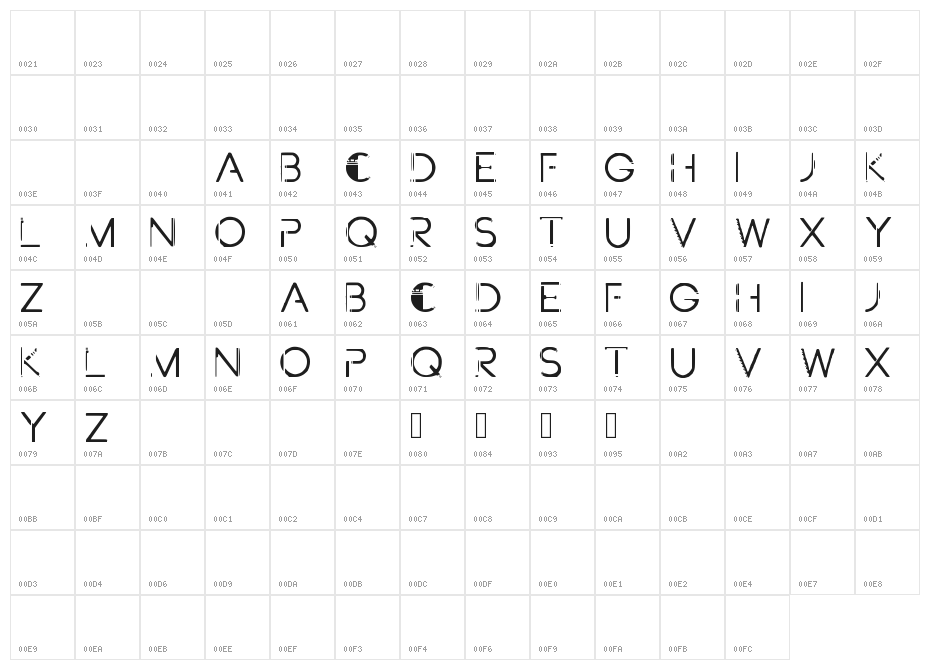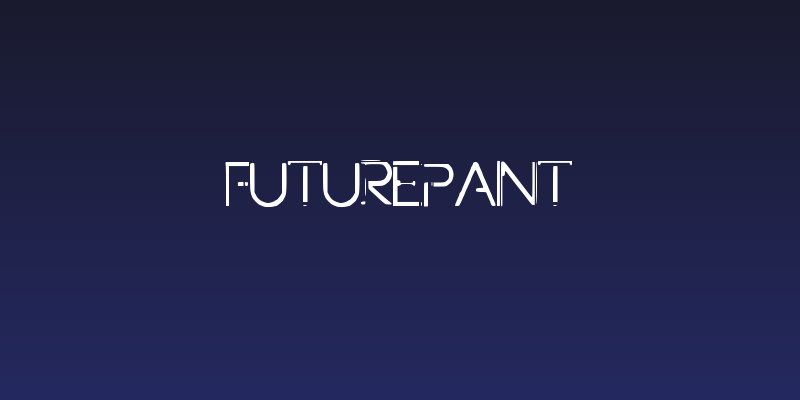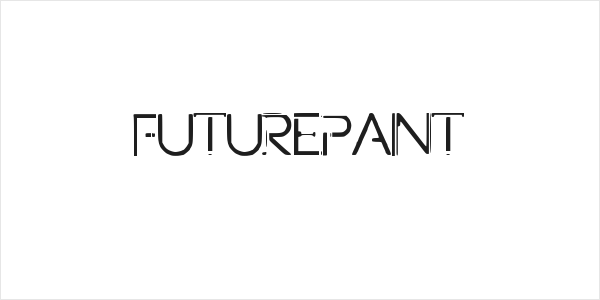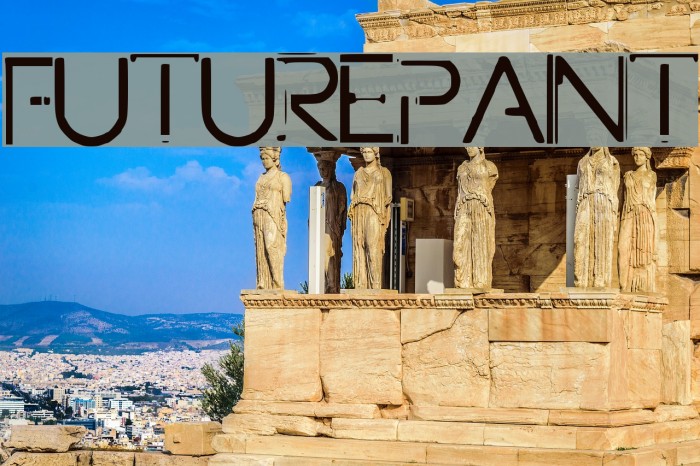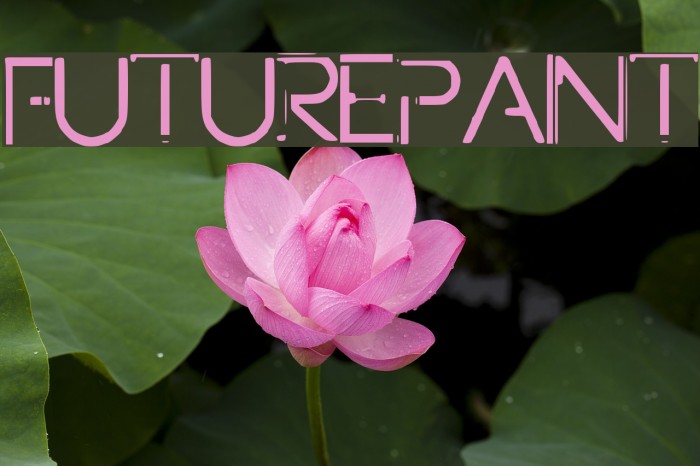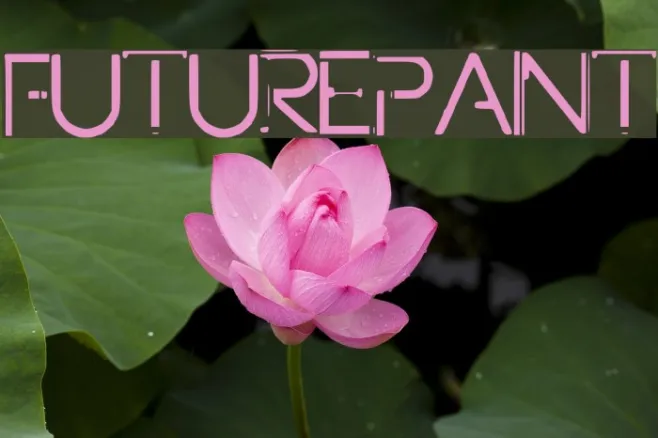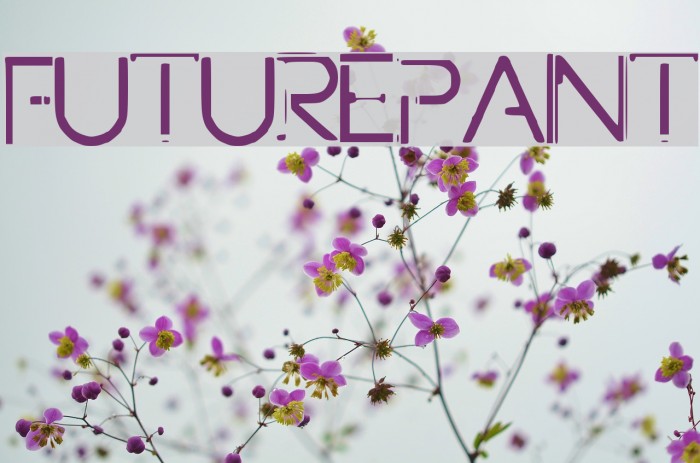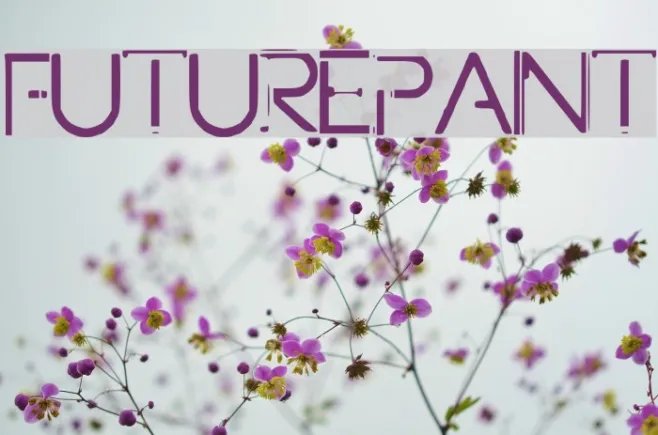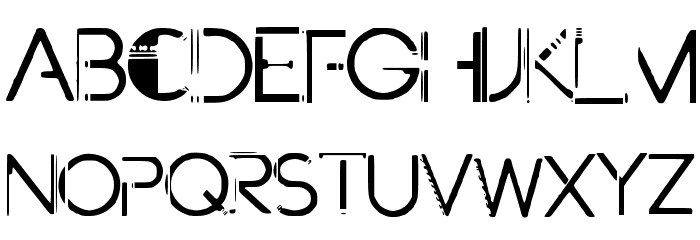
FuturePaint Font
FuturePaint Description
This font features a futuristic and artistic design, characterized by its unique blend of geometric shapes and fragmented lines. The uppercase letters exhibit a distinct style with broken and incomplete strokes, giving it a digital glitch effect. The lowercase letters maintain a similar aesthetic, ensuring consistency throughout the typeface. The numerals and special characters follow the same design principles, making the font suitable for creative and modern applications. Its unconventional appearance makes it stand out, ideal for projects that require a bold and innovative look.
FUTUREPAINT UPPERCASE
FUTUREPAINT LOWERCASE
FUTUREPAINT OTHER CHARS